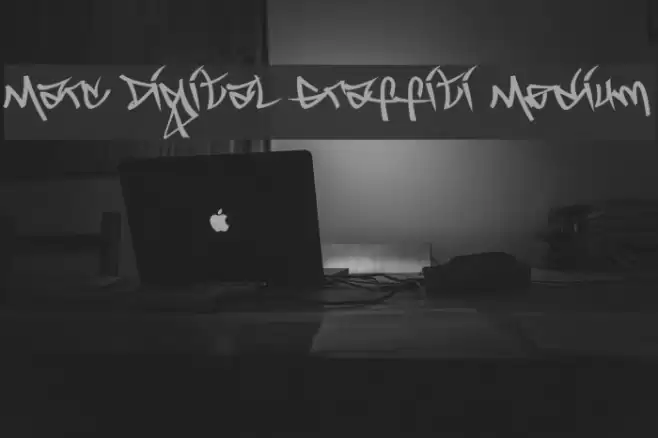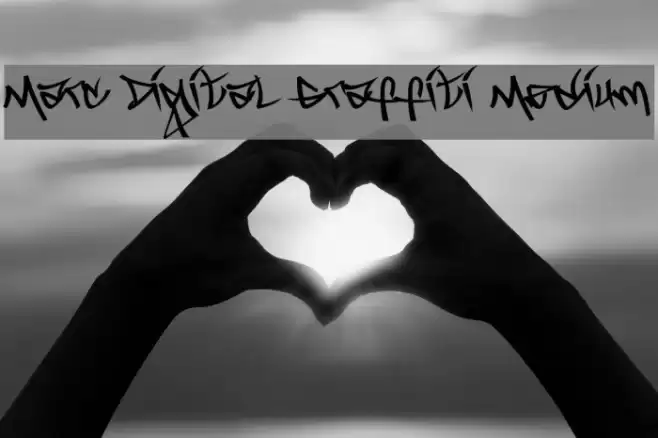
Marc Digital Graffiti Medium Font
Marc Digital Graffiti Medium Description
This font exudes a bold and dynamic graffiti style, characterized by its sharp angles and fluid, interconnected strokes. Each letter appears as if it has been swiftly painted with a spray can, capturing the essence of urban street art. The uppercase and lowercase letters maintain a consistent style, with exaggerated curves and pointed edges that create a sense of movement and energy. Numbers and special characters follow the same aesthetic, adding to the cohesive look. The font's unique style makes it ideal for projects that aim to convey a sense of rebellion, creativity, and modernity.
A bold graffiti-style font with sharp angles and fluid strokes from Graffiti fonts.
- Proposed Projects: Perfect for urban-themed designs, streetwear branding, music album covers, and event posters.
- Character Spacing: Tight